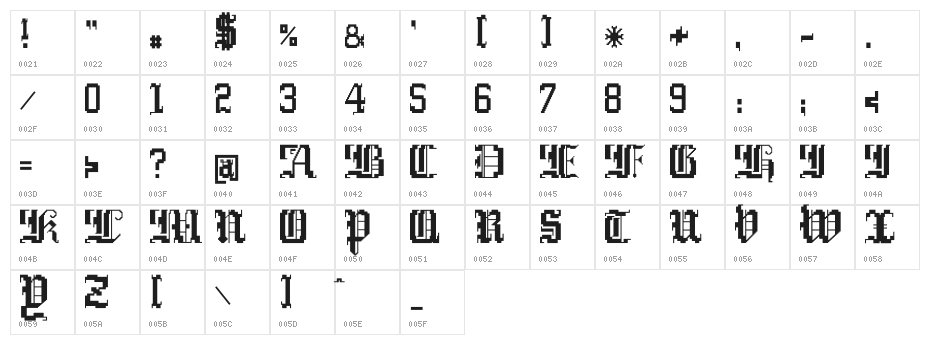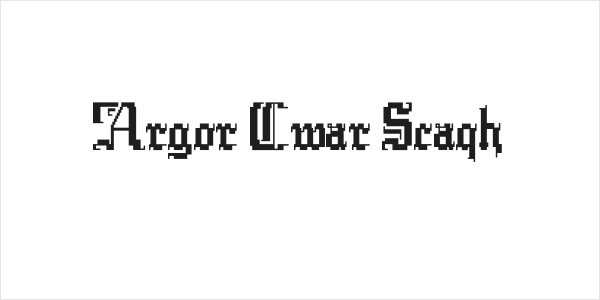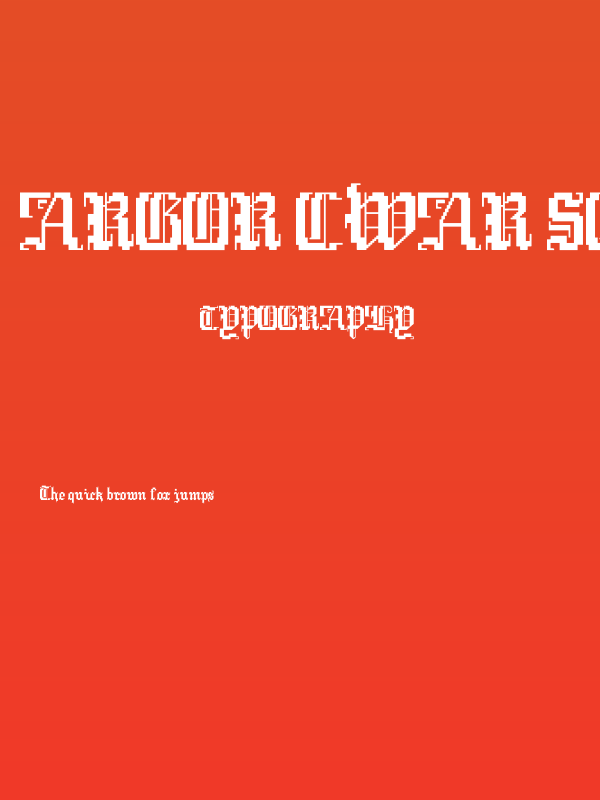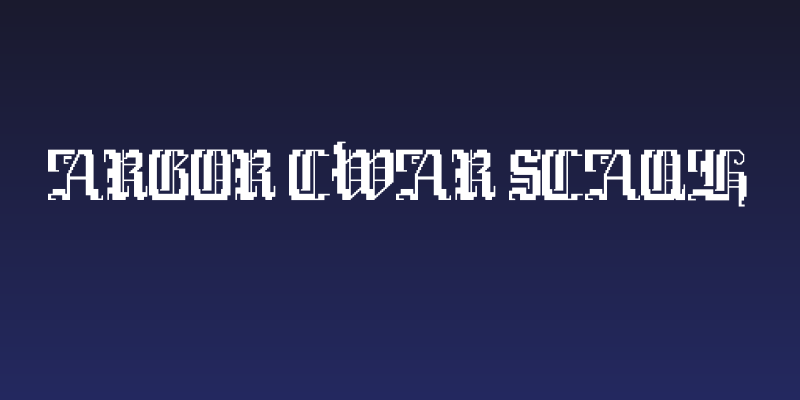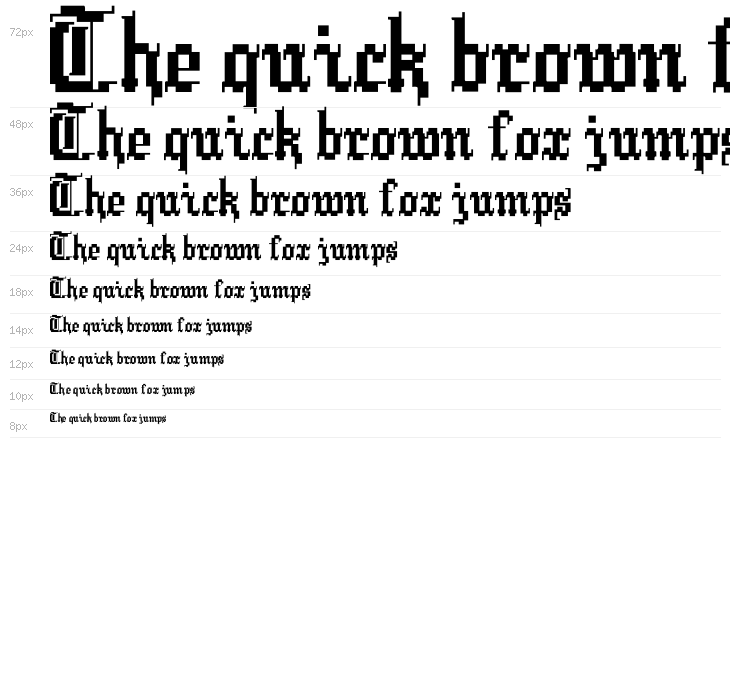
Argor Cwar Scaqh Font
Argor Cwar Scaqh Description
This font exhibits a bold and intricate design, reminiscent of medieval or gothic styles. The characters are highly decorative, featuring sharp angles and elaborate serifs that give it a distinct, ornate appearance. The uppercase letters are particularly striking, with a strong presence and a sense of grandeur. The lowercase letters maintain the same intricate detailing, ensuring consistency throughout the typeface. Numbers and special characters are equally stylized, making them suitable for thematic or artistic projects. The overall impression is one of elegance and historical flair, making it ideal for projects that require a touch of the dramatic or the classical.